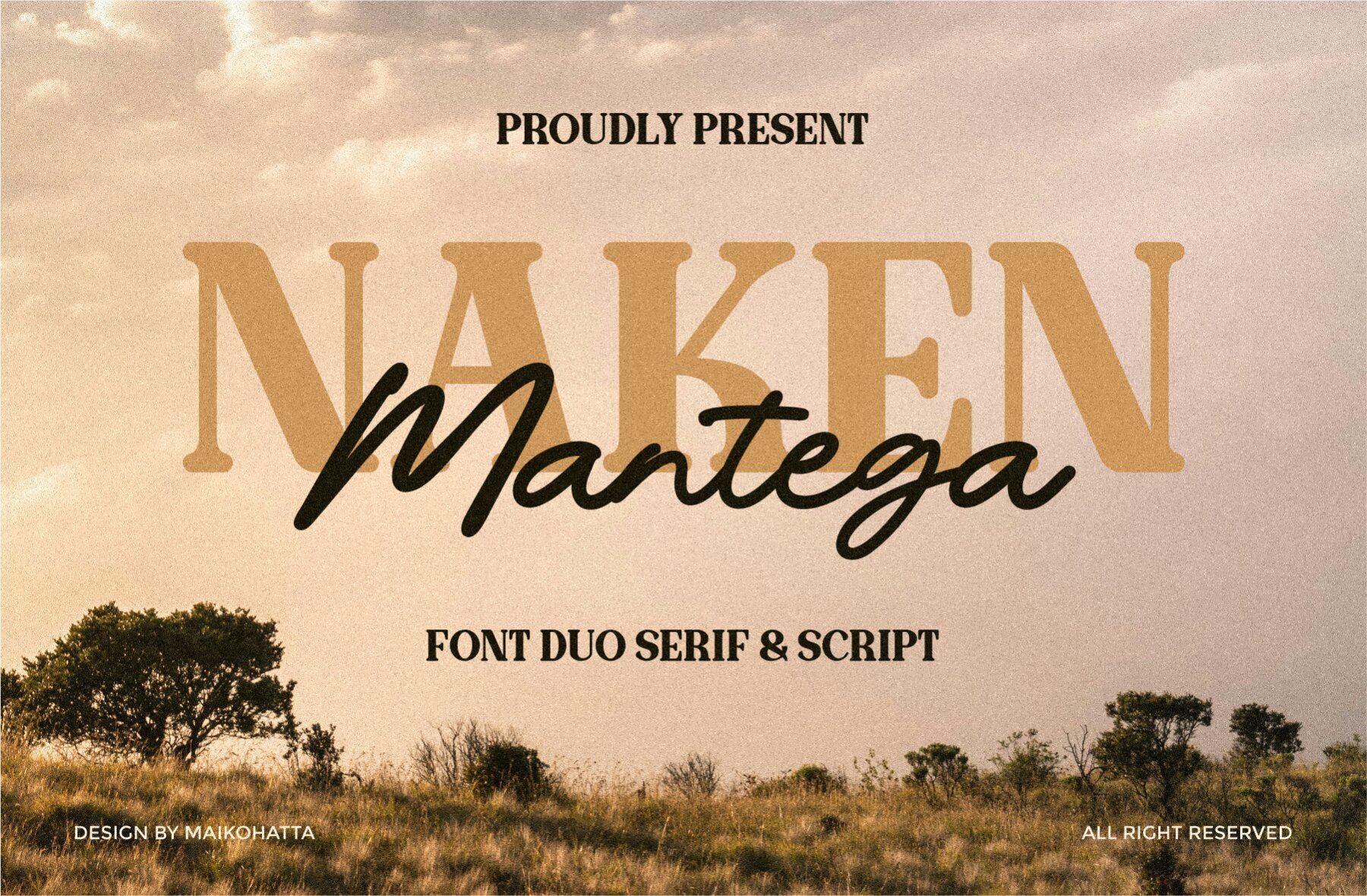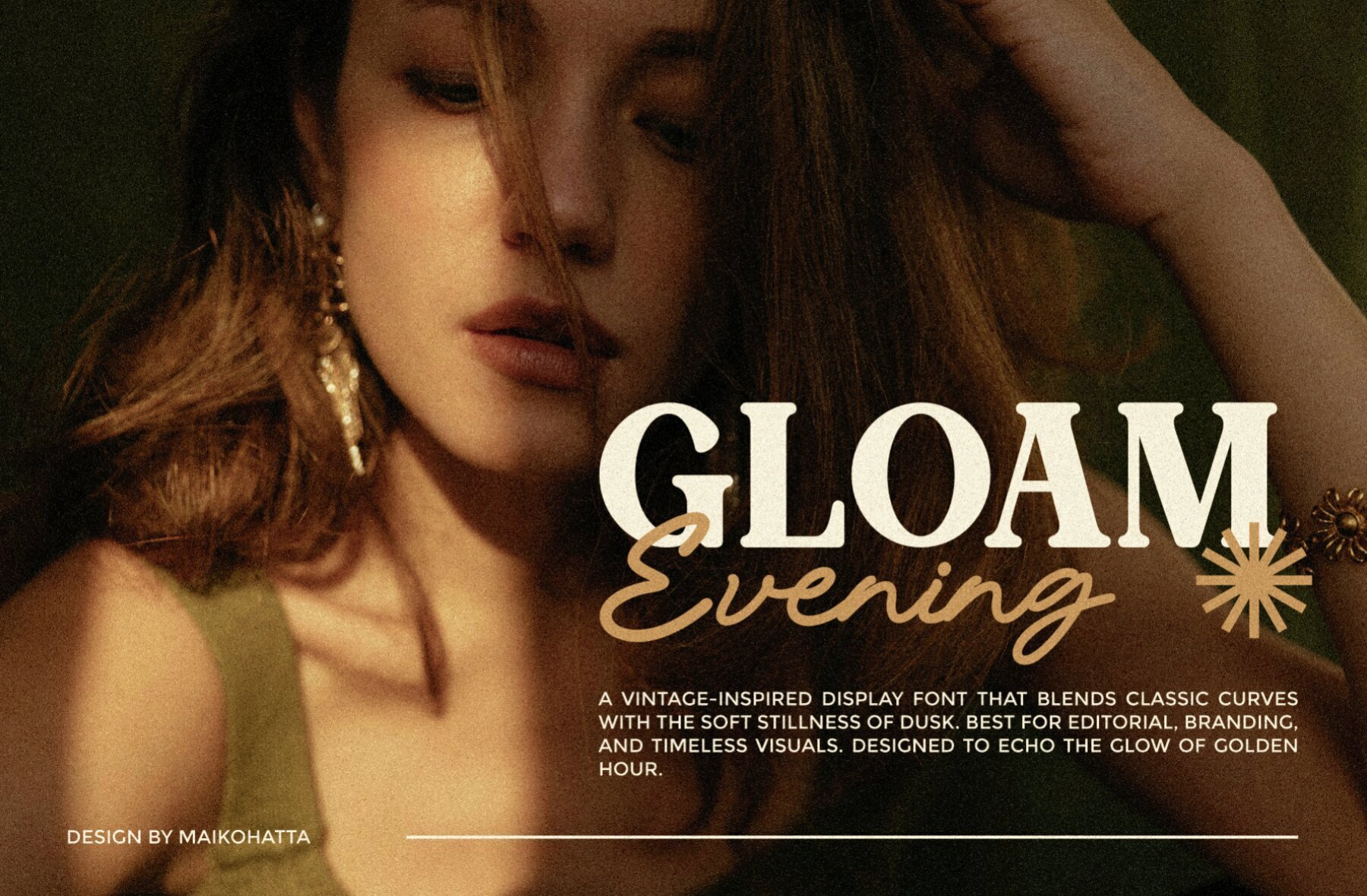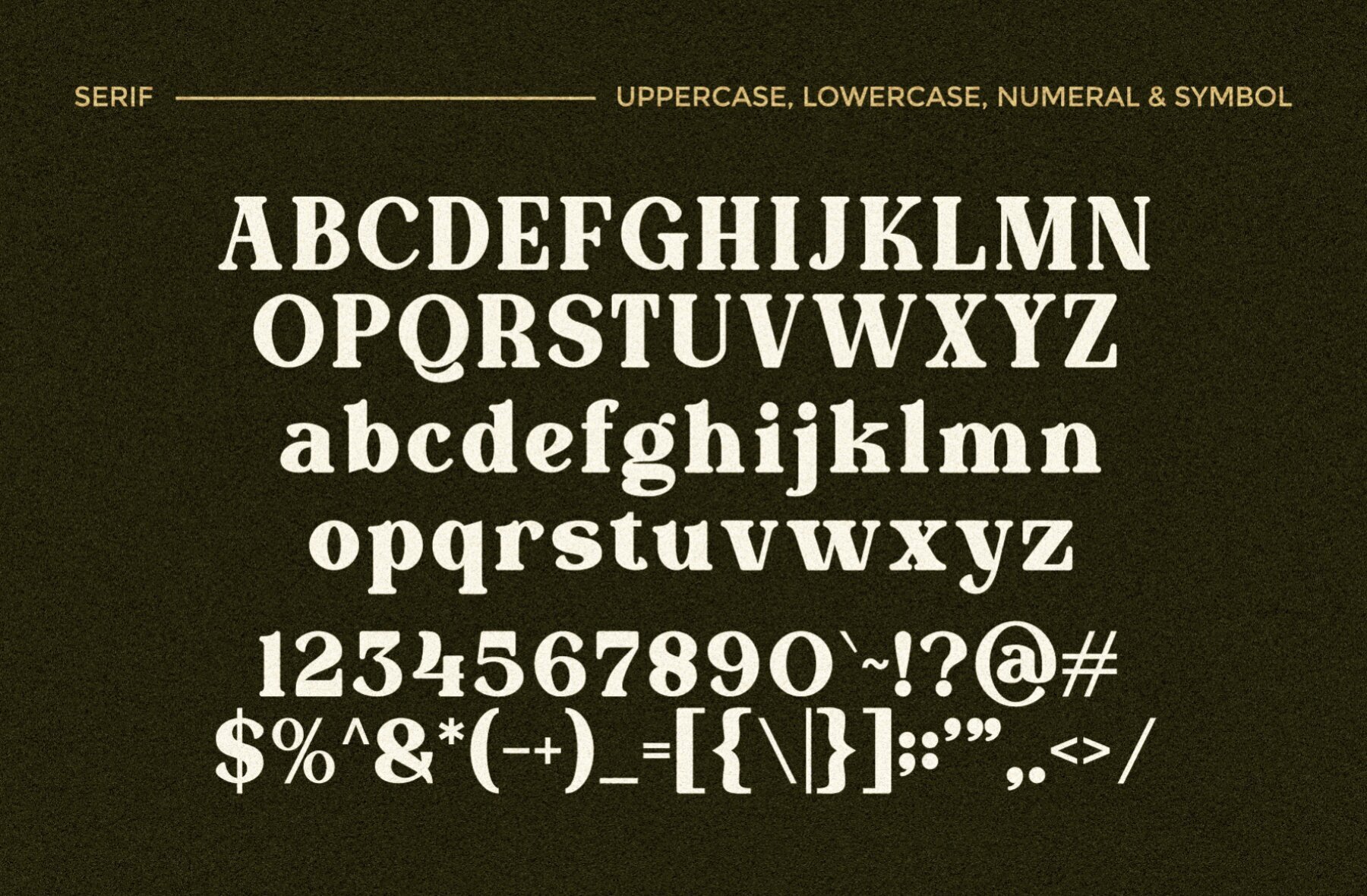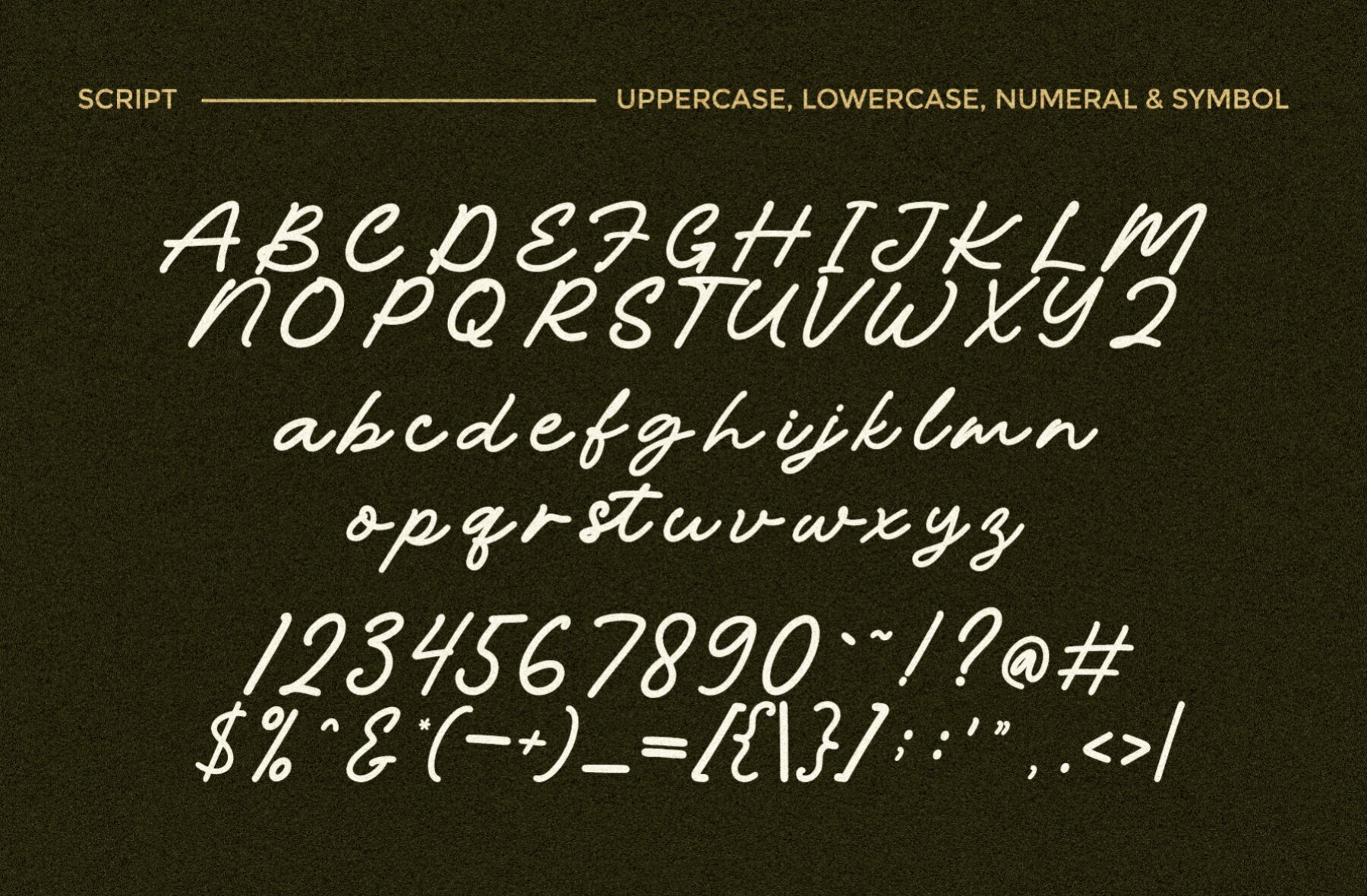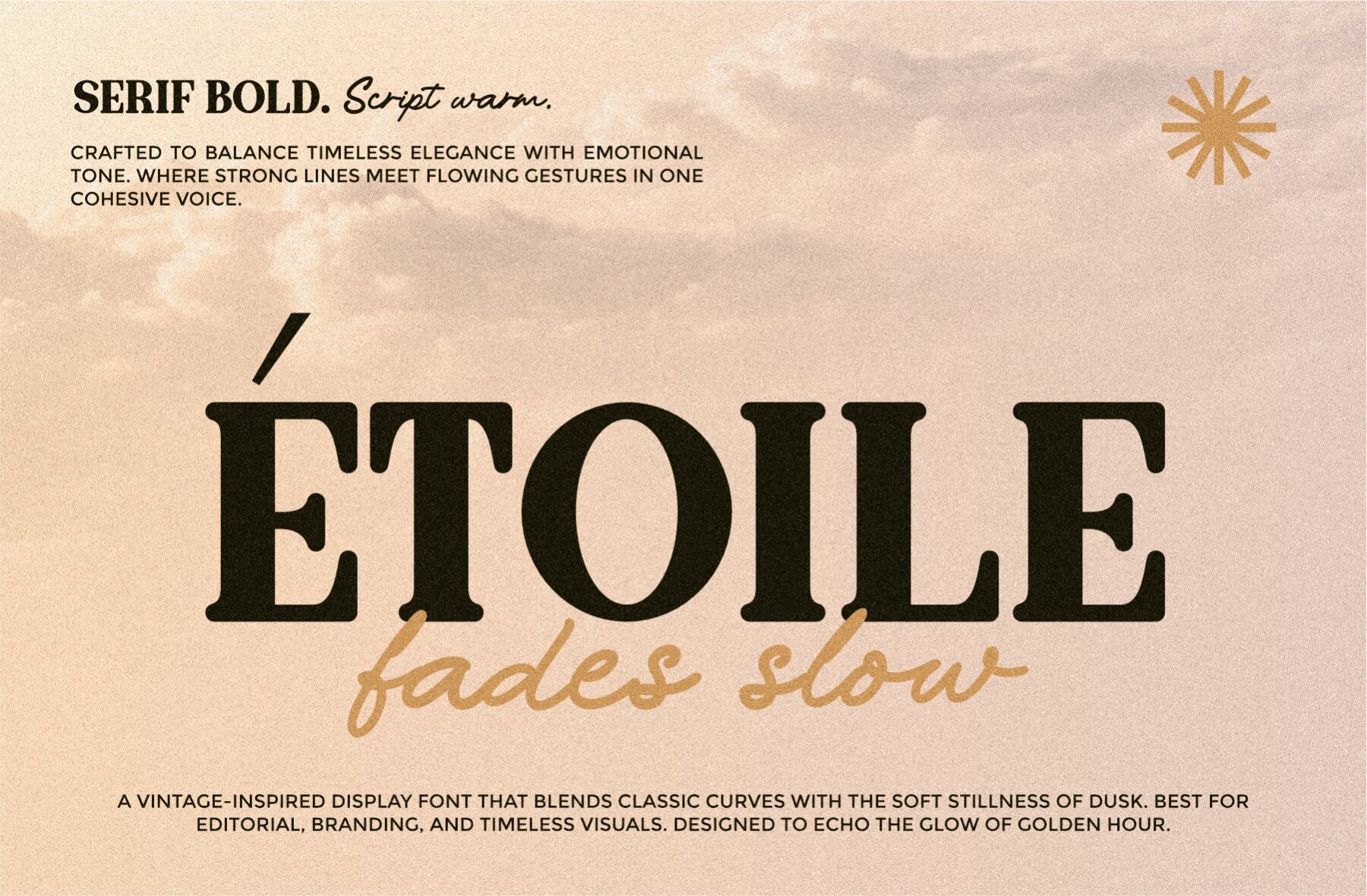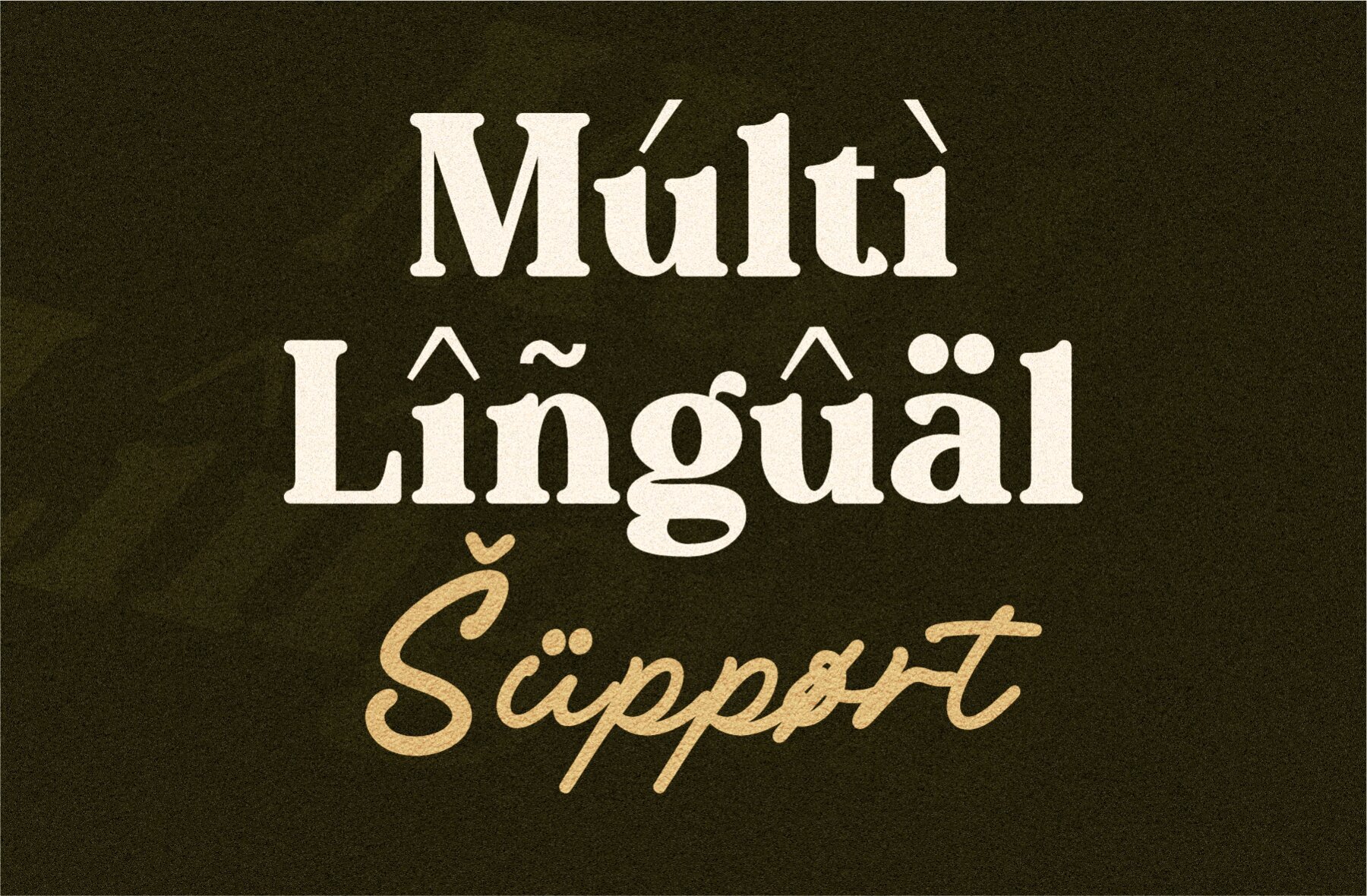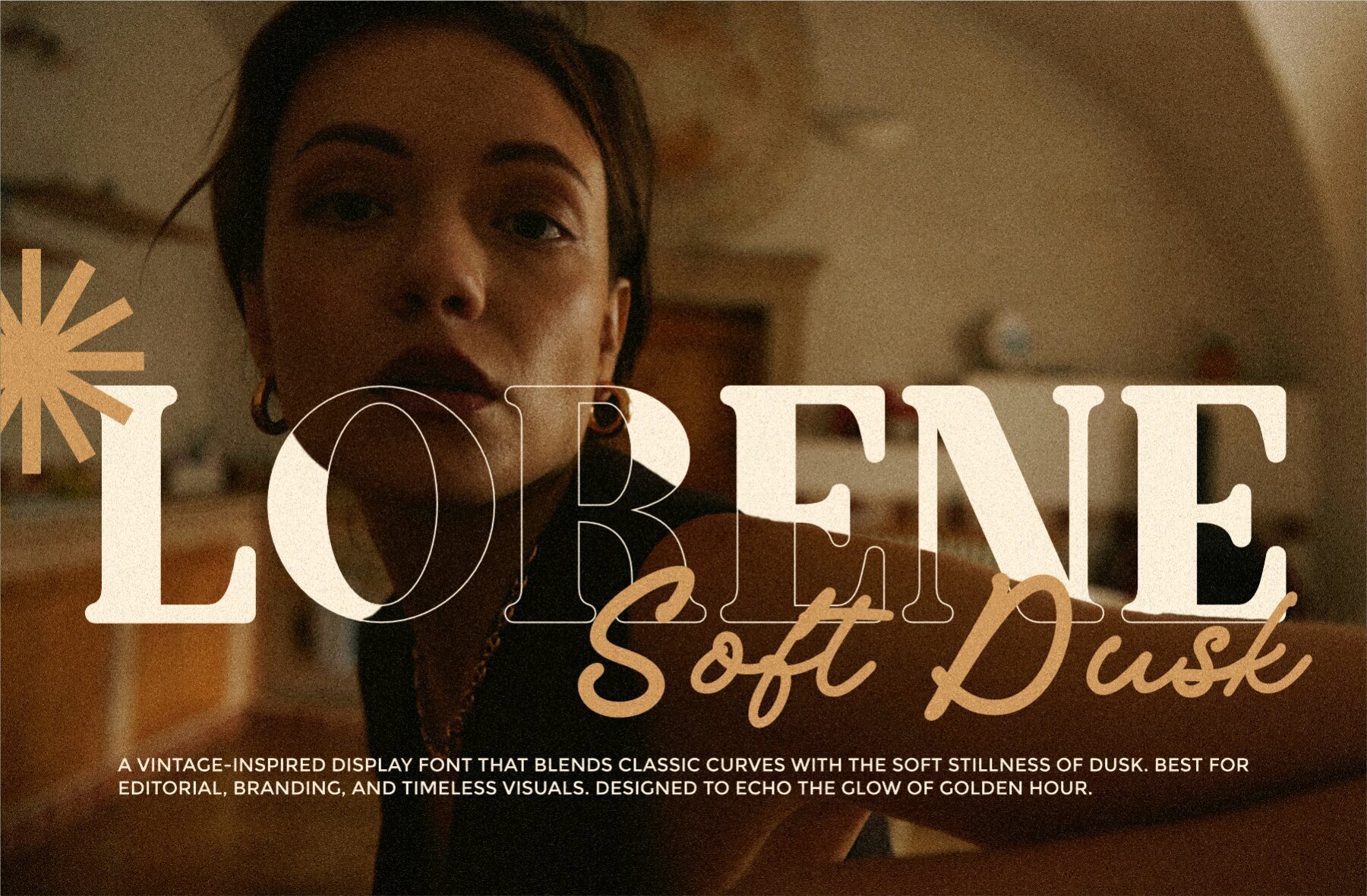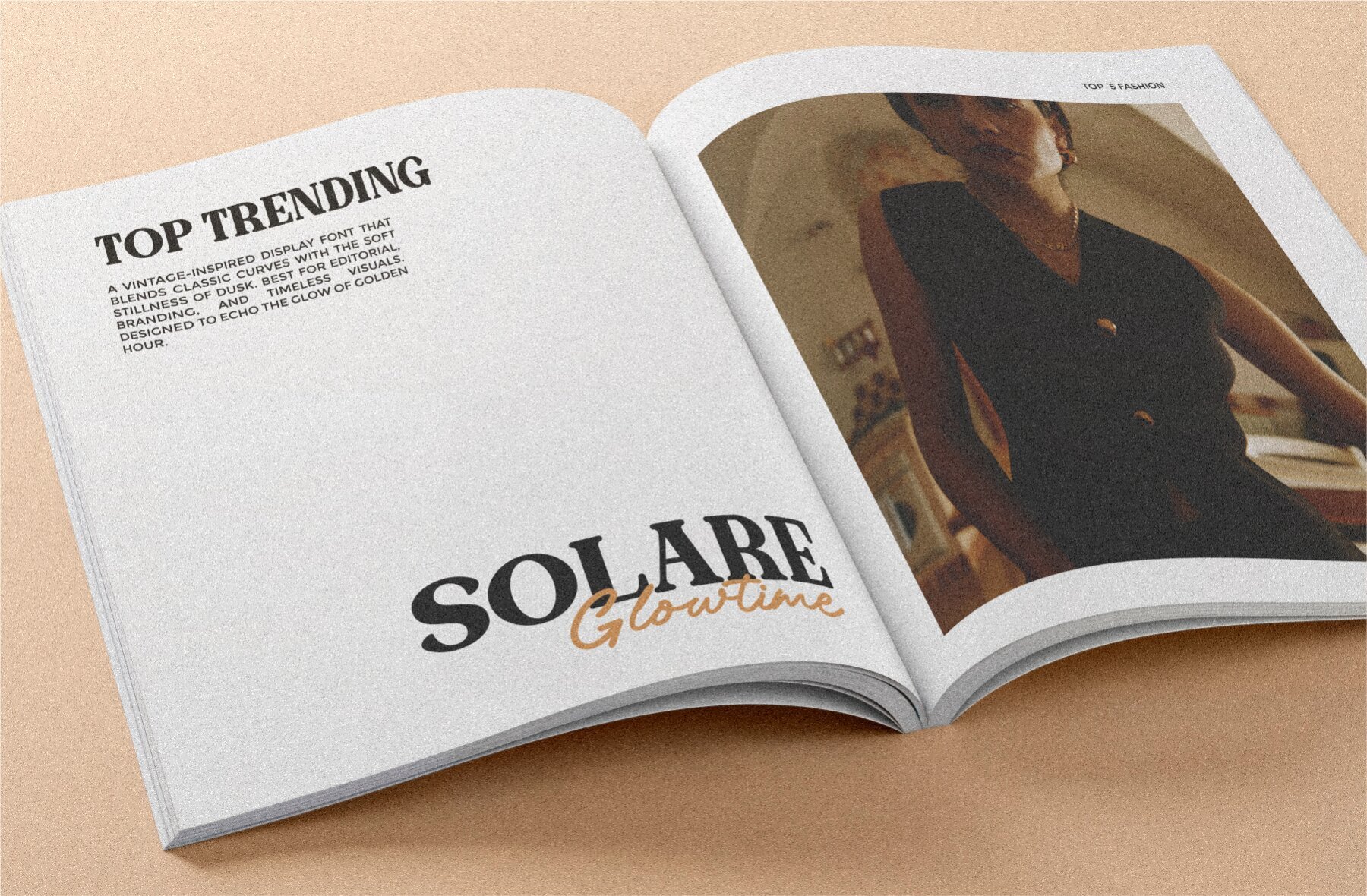
Naken Mantega Font
Discover the distinct character of Naken Mantega, a stylish font duo that epitomizes the fusion of bold serif strength with the fluidity of modern script. This combination offers charm and versatility, making it an excellent choice for branding, packaging, editorial designs, and wedding invitations. Naken – This classic serif font boasts a bold, commanding presence with its softly rounded details, making it ideal for headlines and logos. Mantega – This flowing script typeface exudes hand-lettered charm, adding a personal and warm touch to your designs. The synergy between Naken and Mantega creates a balance of tradition and trend, elegantly bridging formality and warmth.Naken Mantega: A Harmonious Font Duo